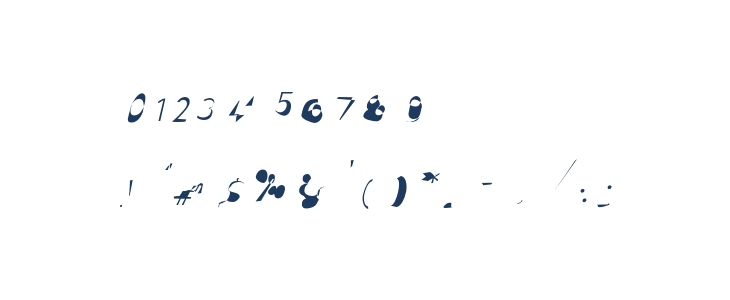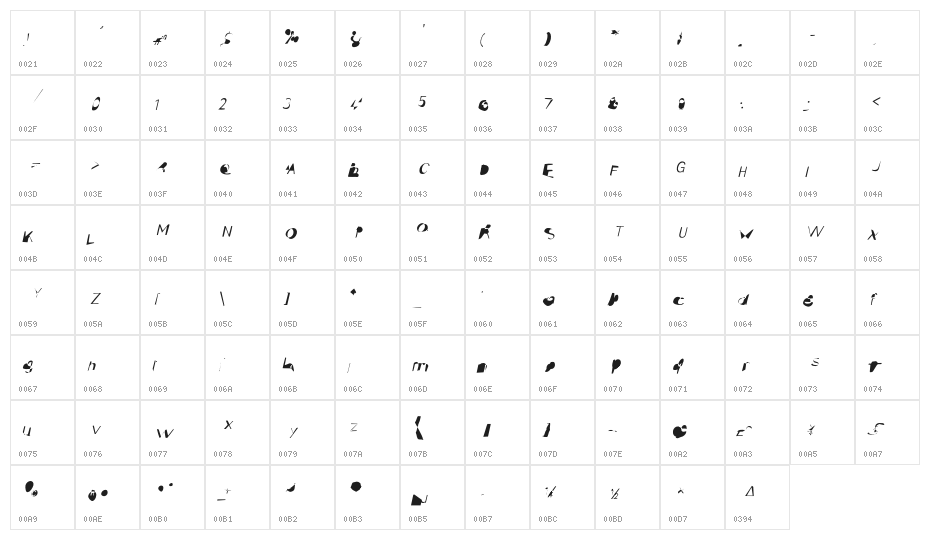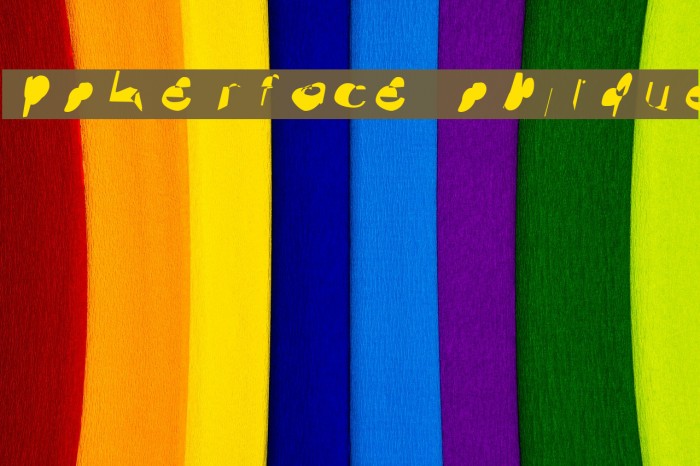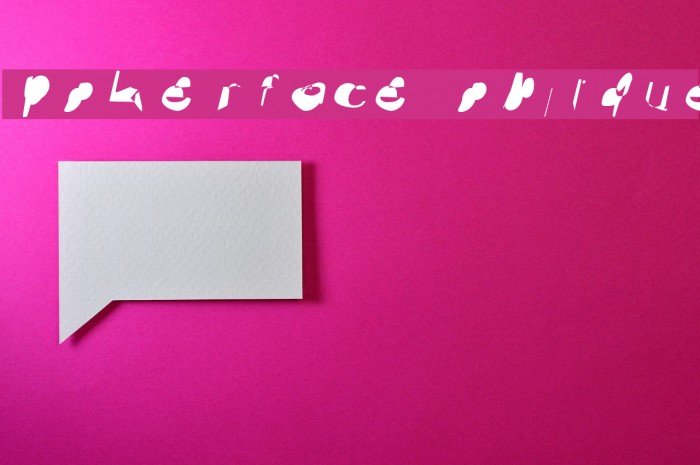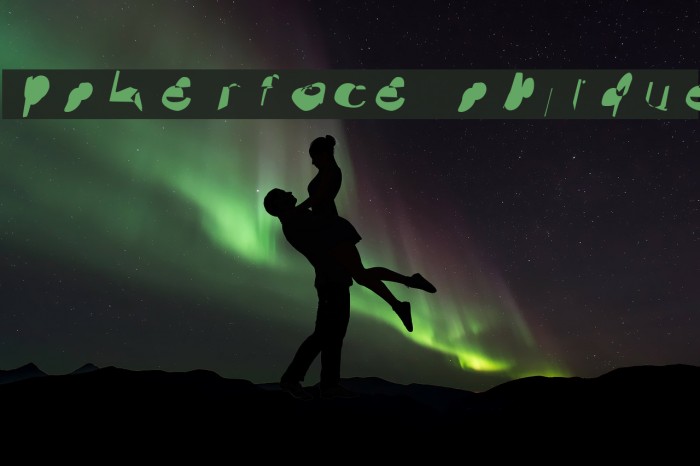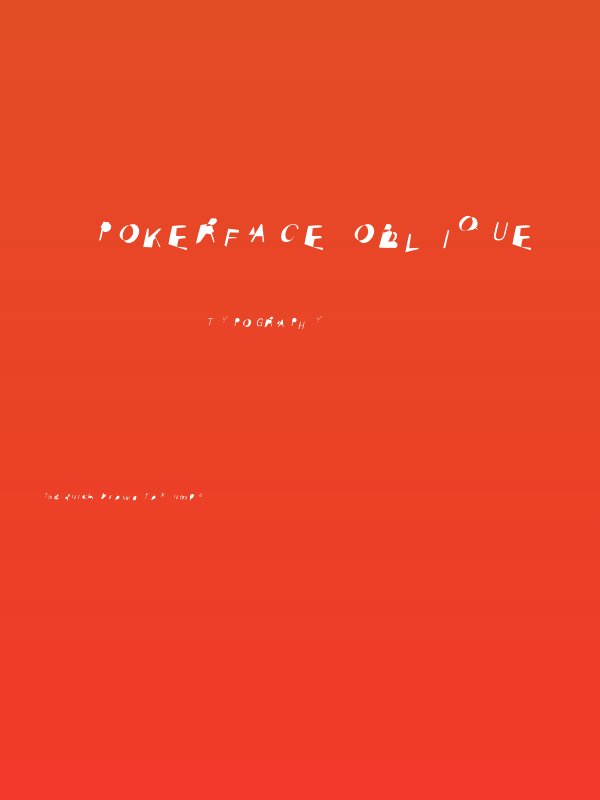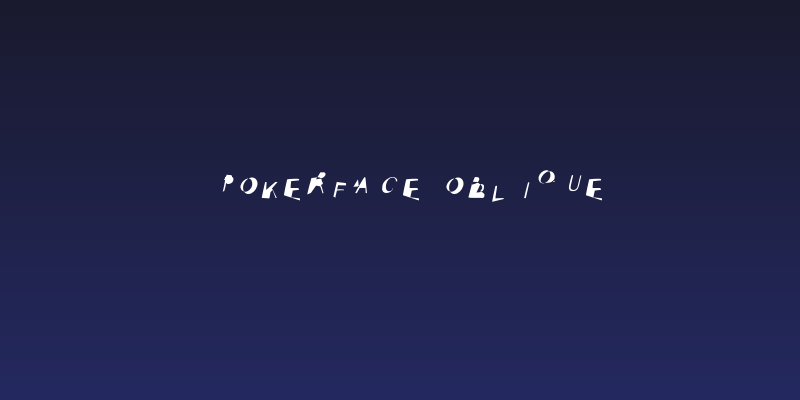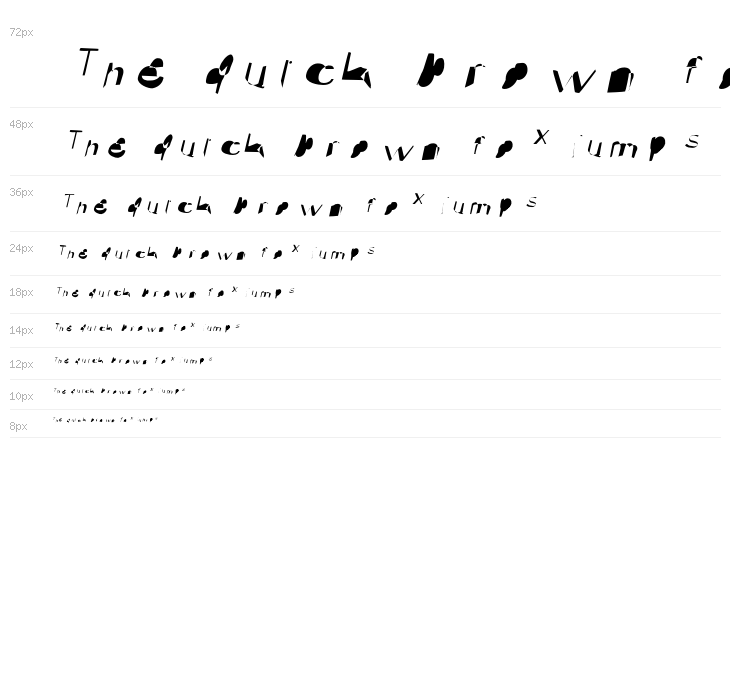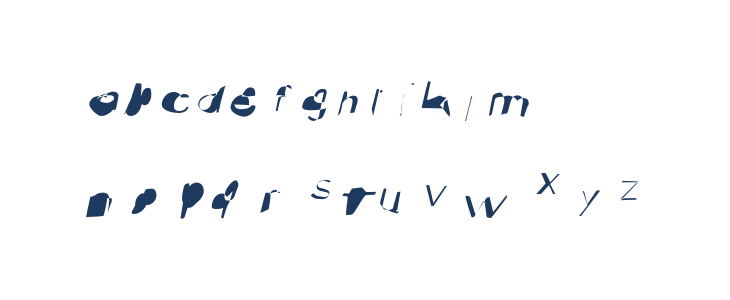
pokerface oblique Font
pokerface oblique Description
This font features a unique and playful design with an oblique style that gives it a dynamic and energetic appearance. The characters are creatively distorted, with varying thickness and angles, creating a sense of movement and spontaneity. The uppercase letters are bold and striking, while the lowercase letters maintain a quirky charm. Numbers and special characters follow the same playful theme, making the font suitable for creative and unconventional projects. The overall design is visually engaging, making it ideal for attention-grabbing headlines or artistic expressions.
| Use Case | Headlines, Logos, Artistic projects |
| Proposed Projects | Ideal for creative projects such as posters, album covers, and artistic branding. |